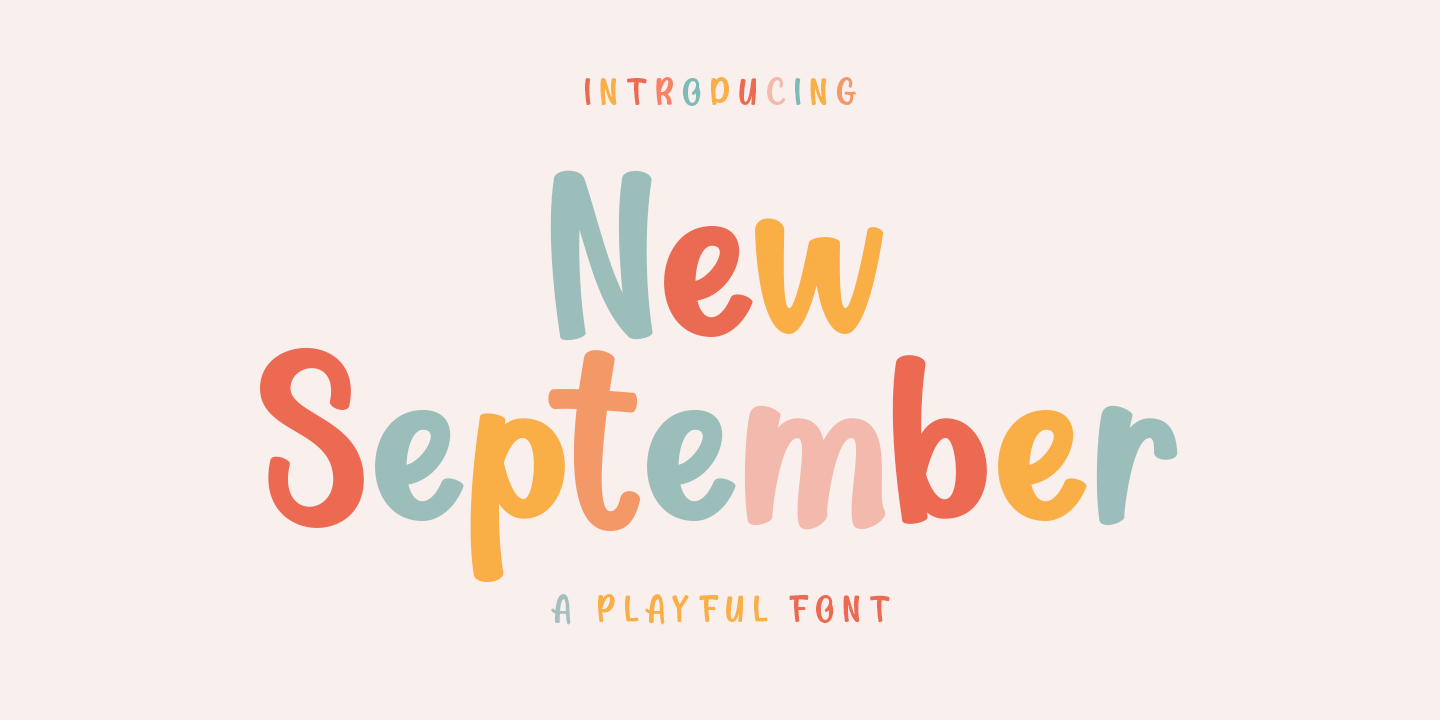
Perfect for wedding invitations, Instagram quotes, branding for beauty and fashion, stationery, personal blogs, and heartfelt greeting cards, New September Font Free Download adds charm and authenticity to every design.
What makes this font so exciting is its fluid strokes and natural handwriting feel, combining casual elegance with just the right amount of flair. It gives your text a human, expressive tone — as if it were penned in a quiet, thoughtful moment.
The New September font family includes Regular, Bold, Italic, and Swash versions, giving you a full set of tools to create layered, stylish typography while keeping your brand identity cohesive.